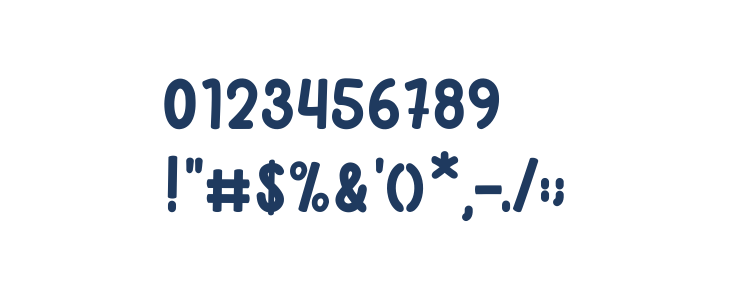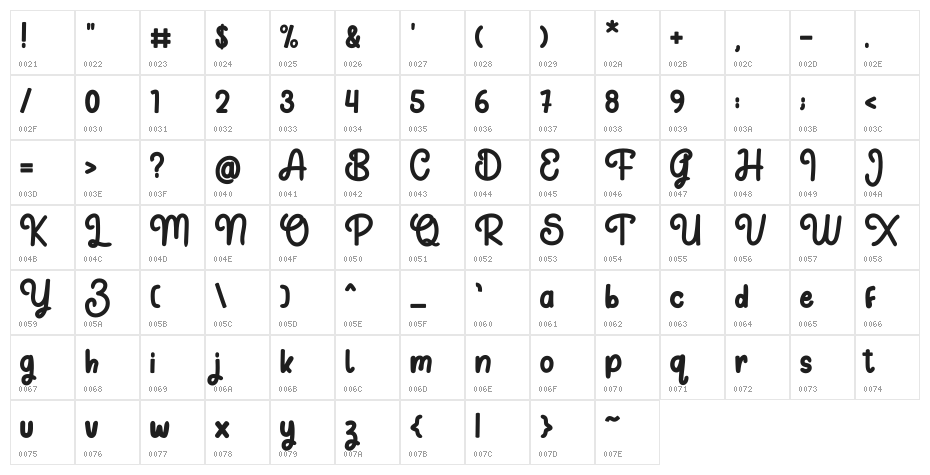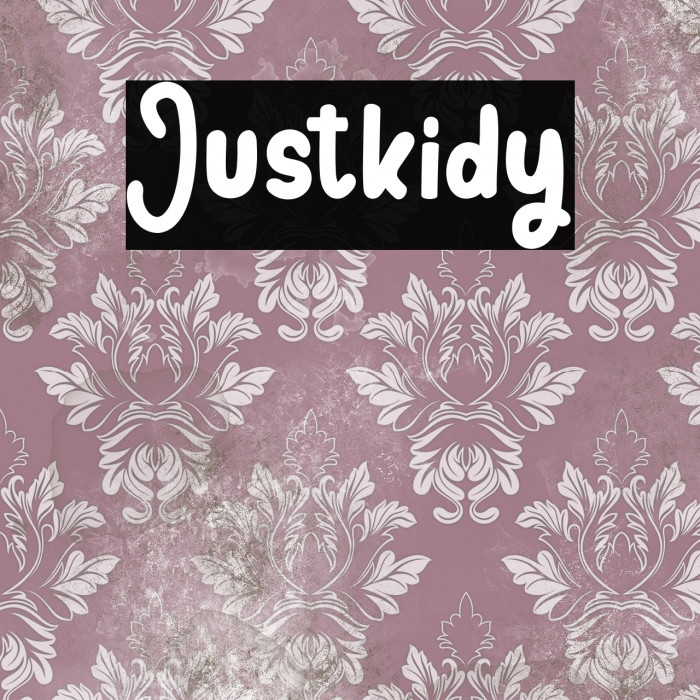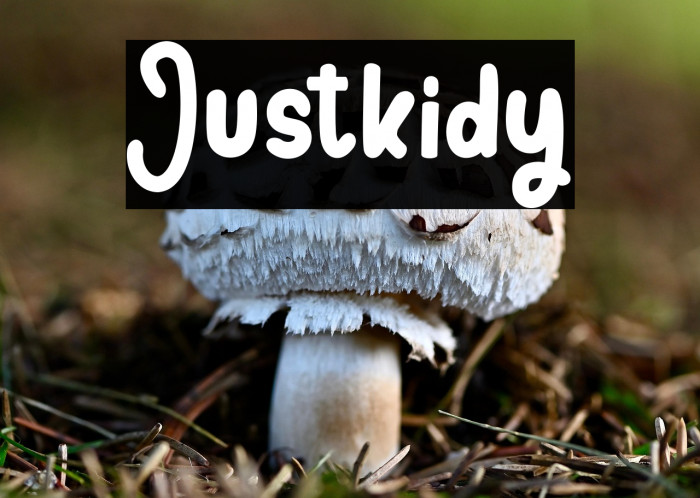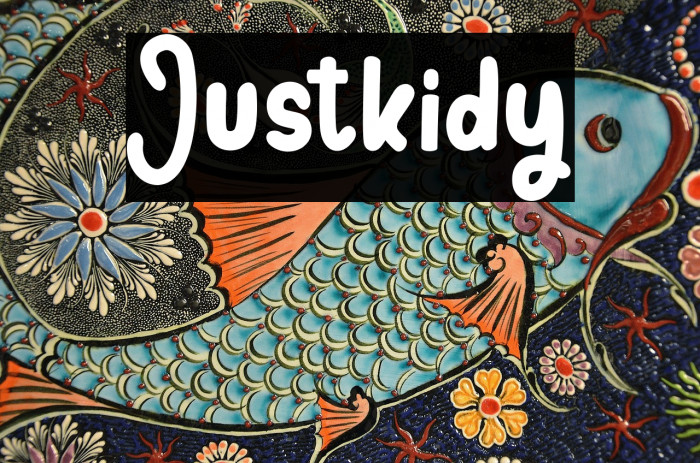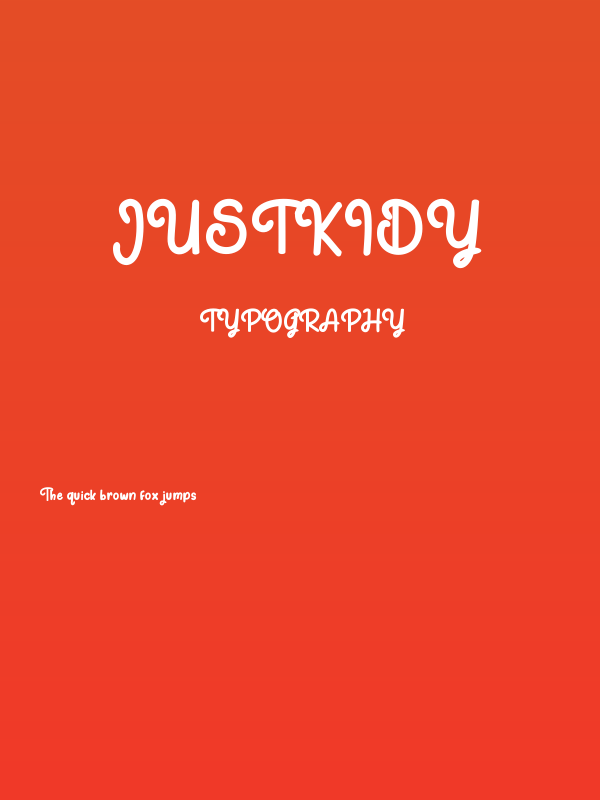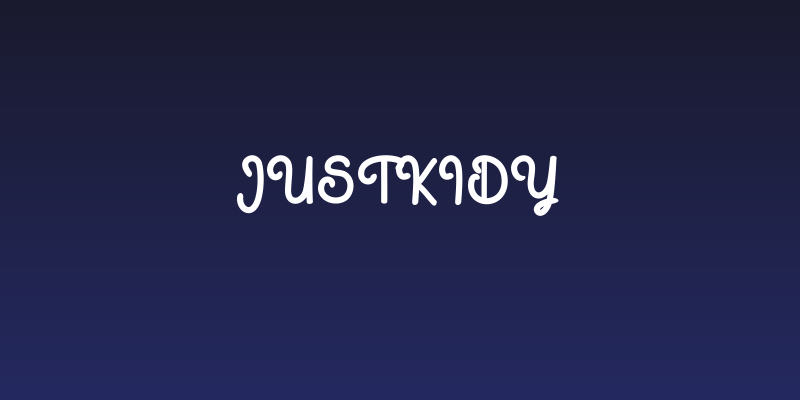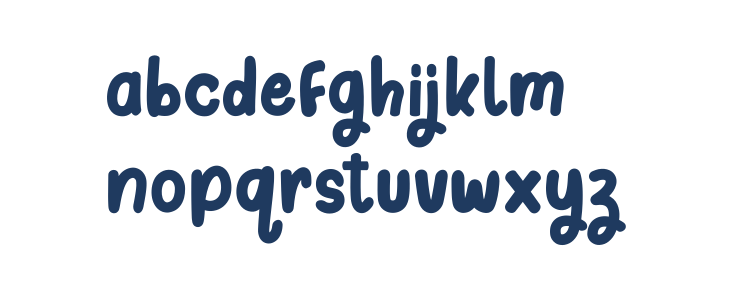
Justkidy Font
Justkidy Description
This playful and whimsical font features rounded, bold characters with a hand-drawn feel. The uppercase letters have a consistent height, while the lowercase letters exhibit a charming irregularity that adds to its casual appeal. The numbers are bold and easy to read, maintaining the same playful style. Special characters are included, each designed with the same rounded, friendly aesthetic. The font's overall appearance is approachable and fun, making it ideal for projects that require a touch of personality and warmth.
| Proposed Projects | Ideal for children's books, playful branding, greeting cards, and casual invitations. |